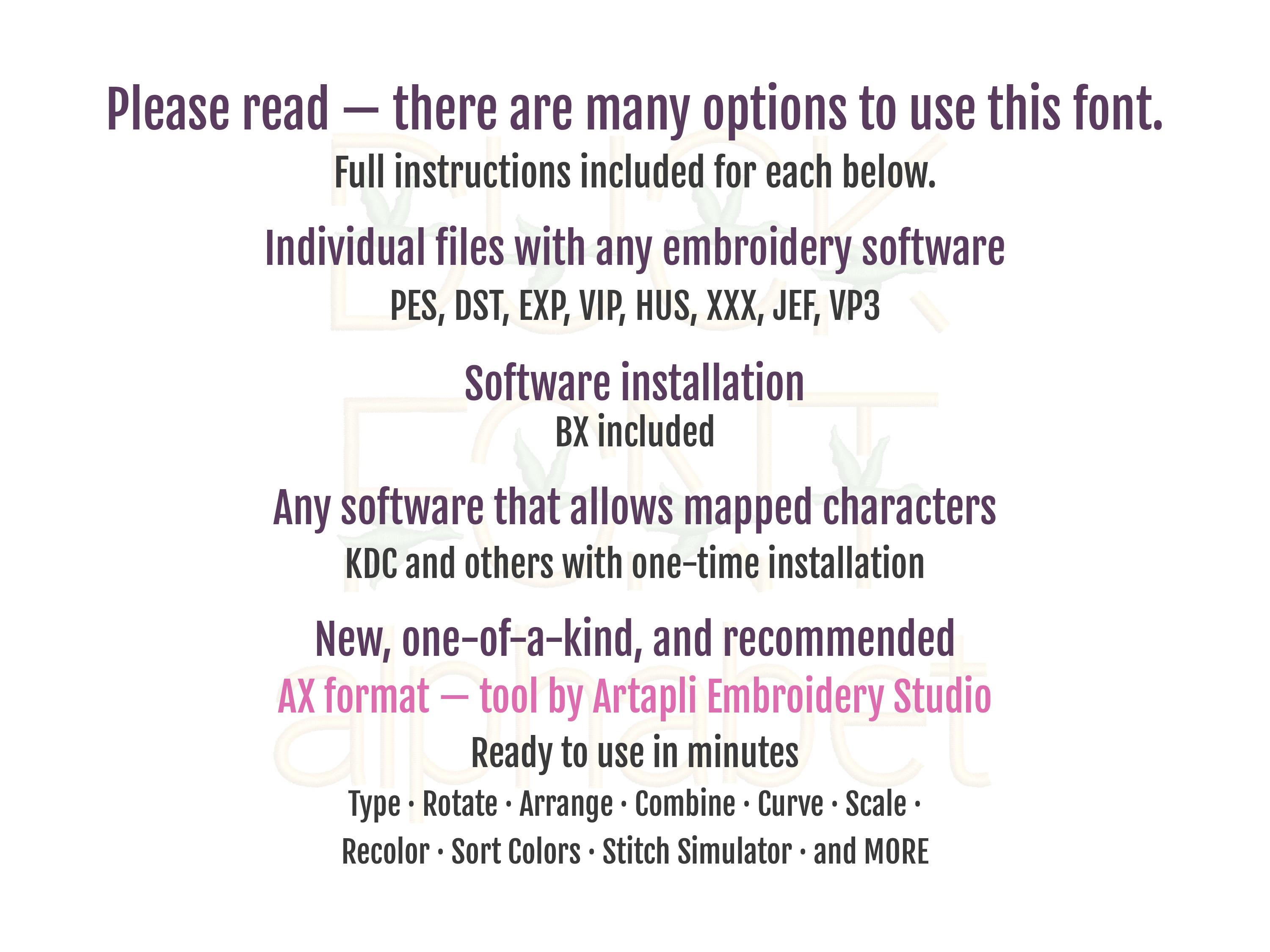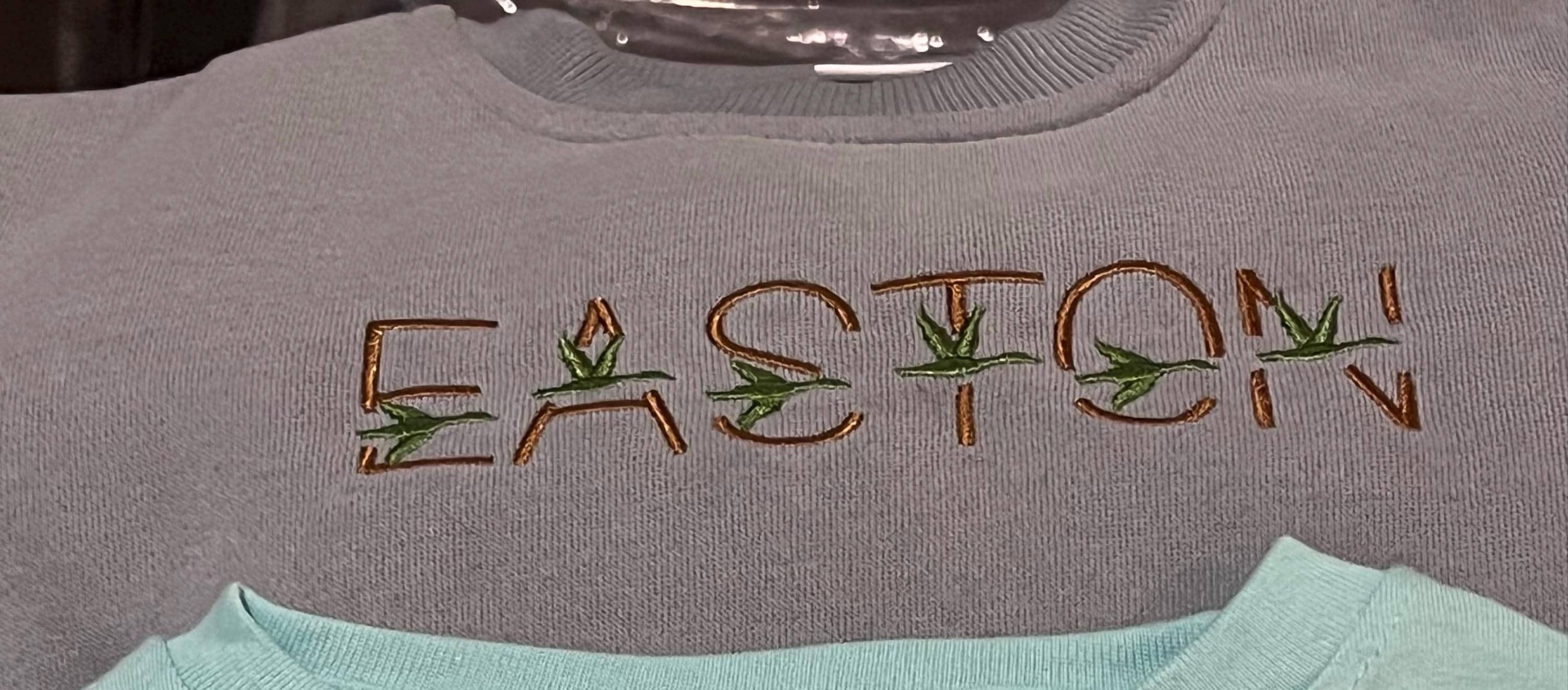
Satin stitch Mallard Font block type alphabet monogram machine embroidery designs boys men Hunter flying Duck Goose bird 1 up 2.7 inch
Satin stitch Mallard Font block type alphabet monogram machine embroidery designs boys men Hunter flying Duck Goose bird sizes 1 up to 2.7 inches
Complete alphabet: includes uppercase and lowercase letters, numbers, ampersand &, and punctuation.
Two alphabet styles are included, as shown in the images: the uppercase letters and numbers feature a Duck design in both upper and lower positions, while the lowercase letters and punctuation do not include the Duck.